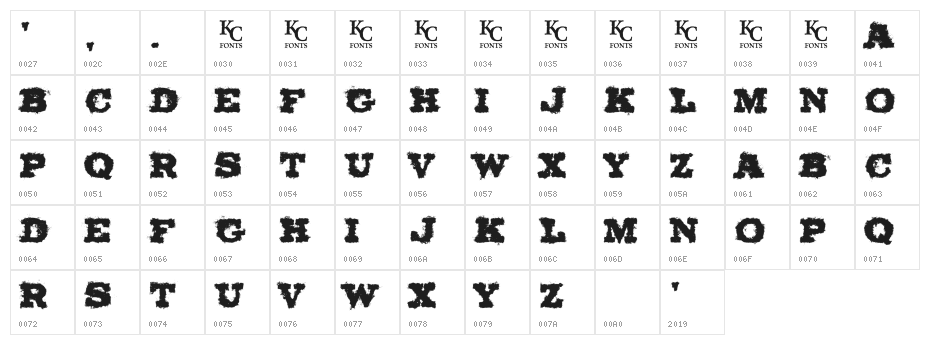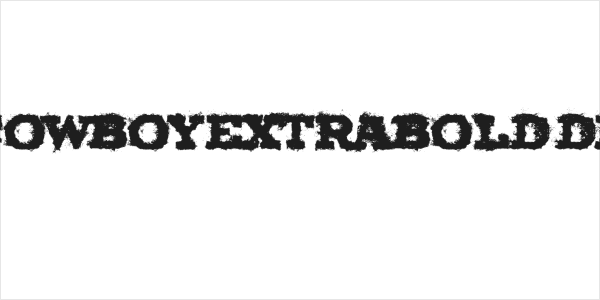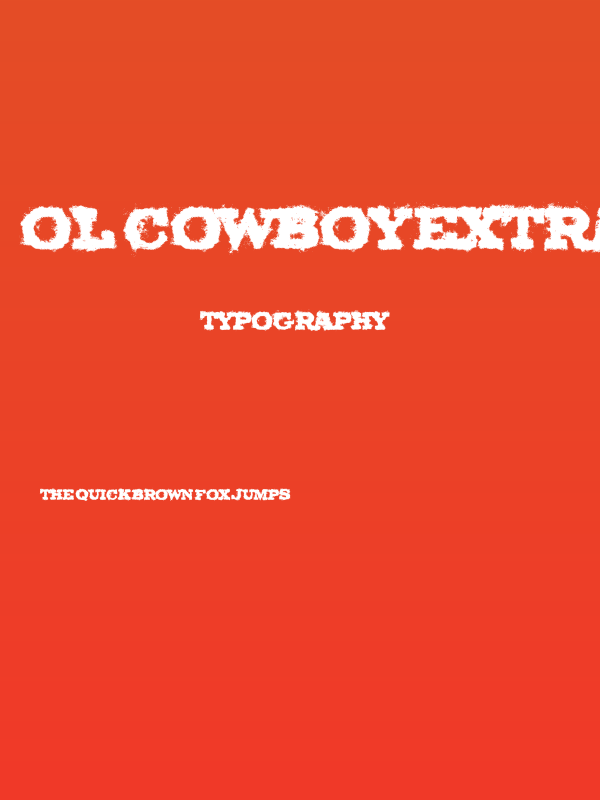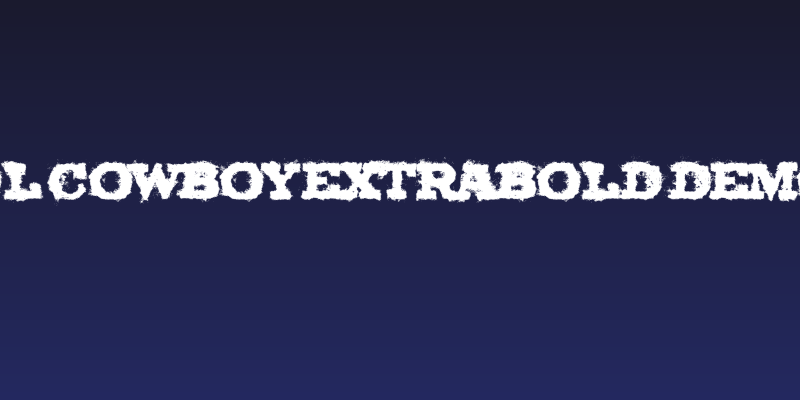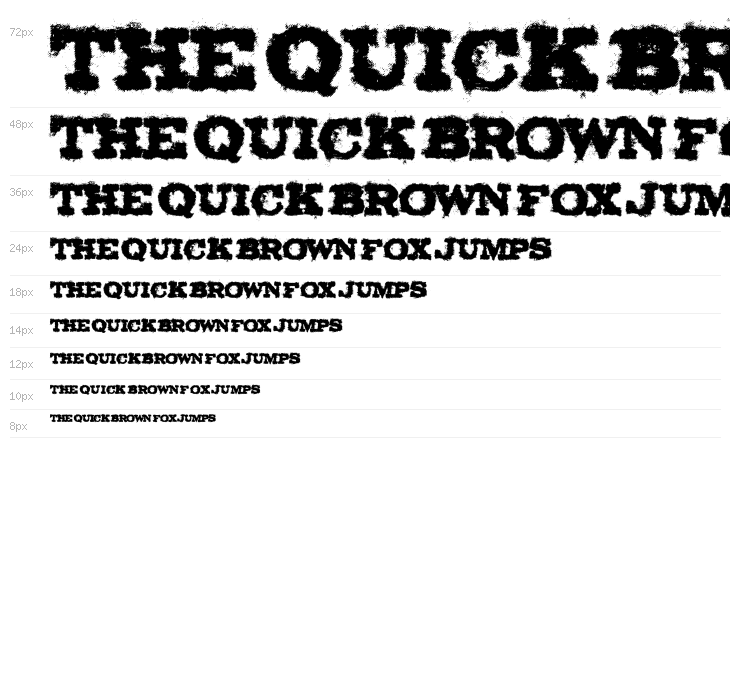
Ol Cowboy ExtraBold DEMO Font
Ol Cowboy ExtraBold DEMO Description
This font features a rugged, distressed style reminiscent of old Western typography. The characters are bold and heavily textured, giving them a worn, vintage appearance. The uppercase letters are particularly striking, with thick strokes and uneven edges that suggest a hand-crafted look. The font's unique style makes it ideal for projects that require a rustic or antique aesthetic. Its boldness ensures high visibility, making it suitable for headlines or titles that need to stand out. The texture adds a layer of complexity, making it visually interesting and engaging.
| Proposed Projects | Ideal for posters, logos, branding, and any design requiring a vintage or Western theme. |